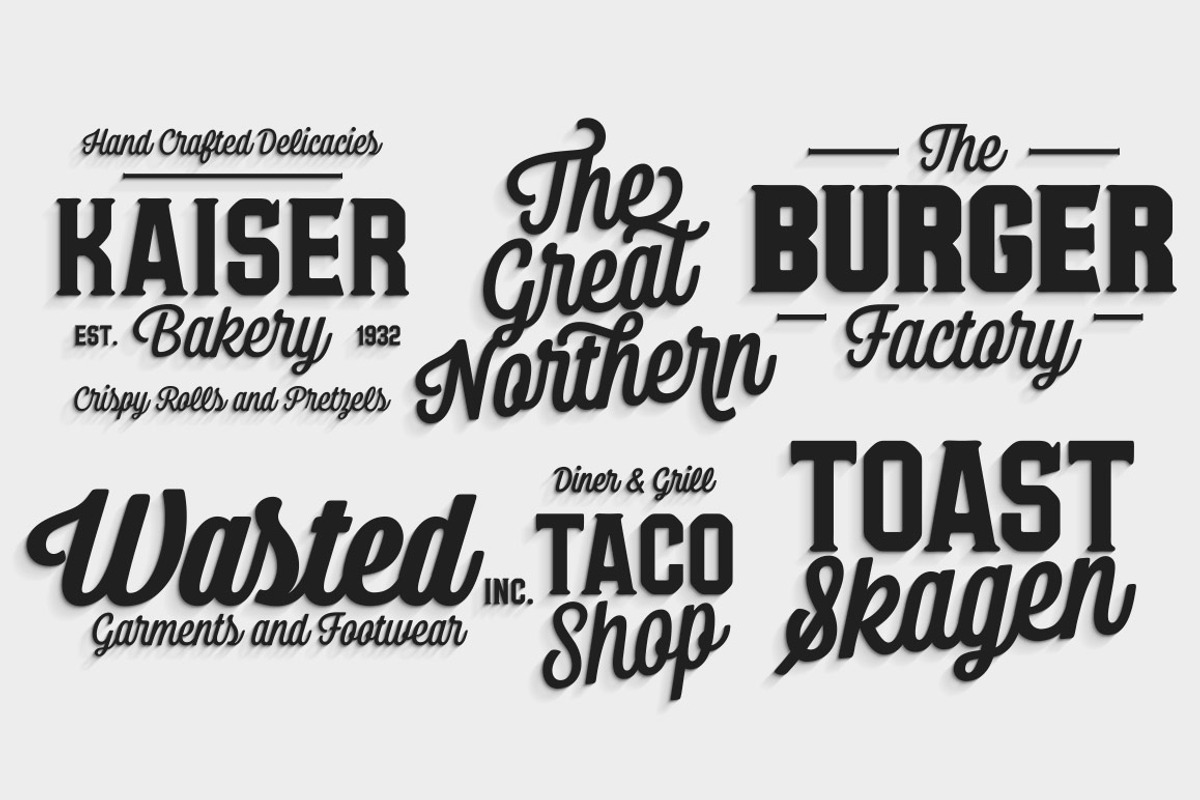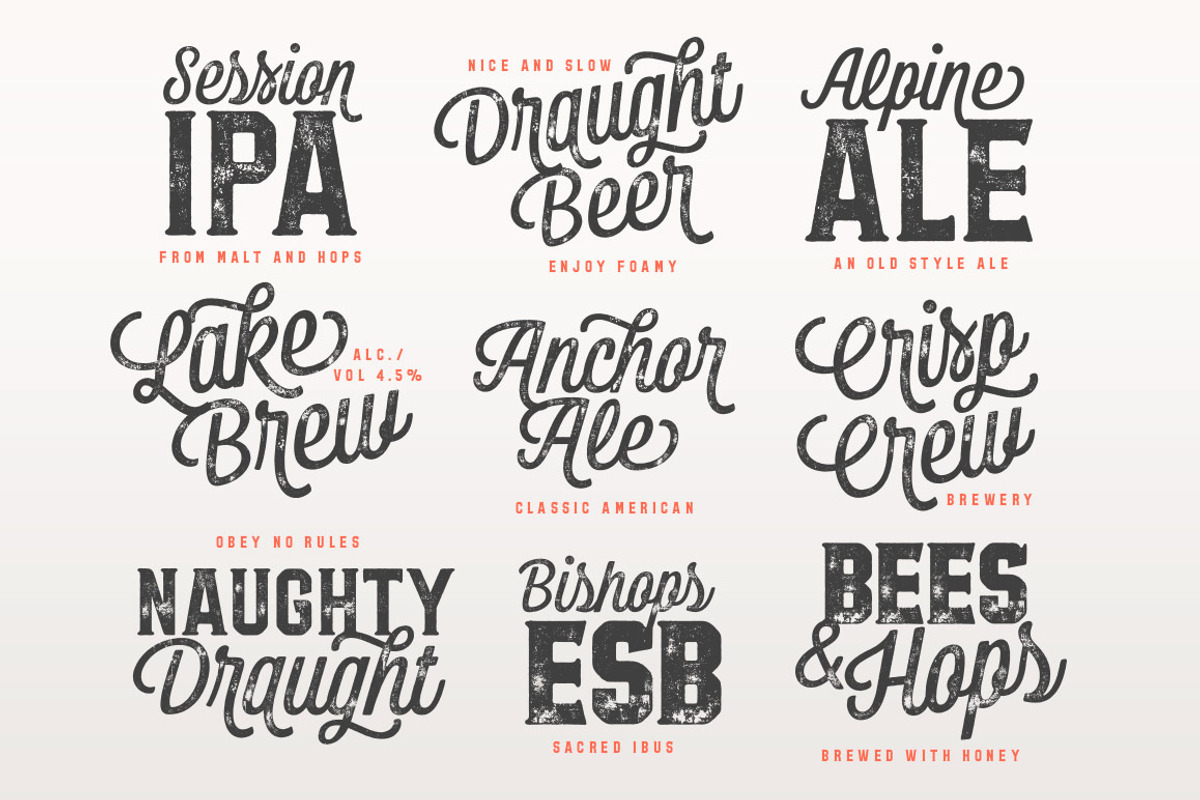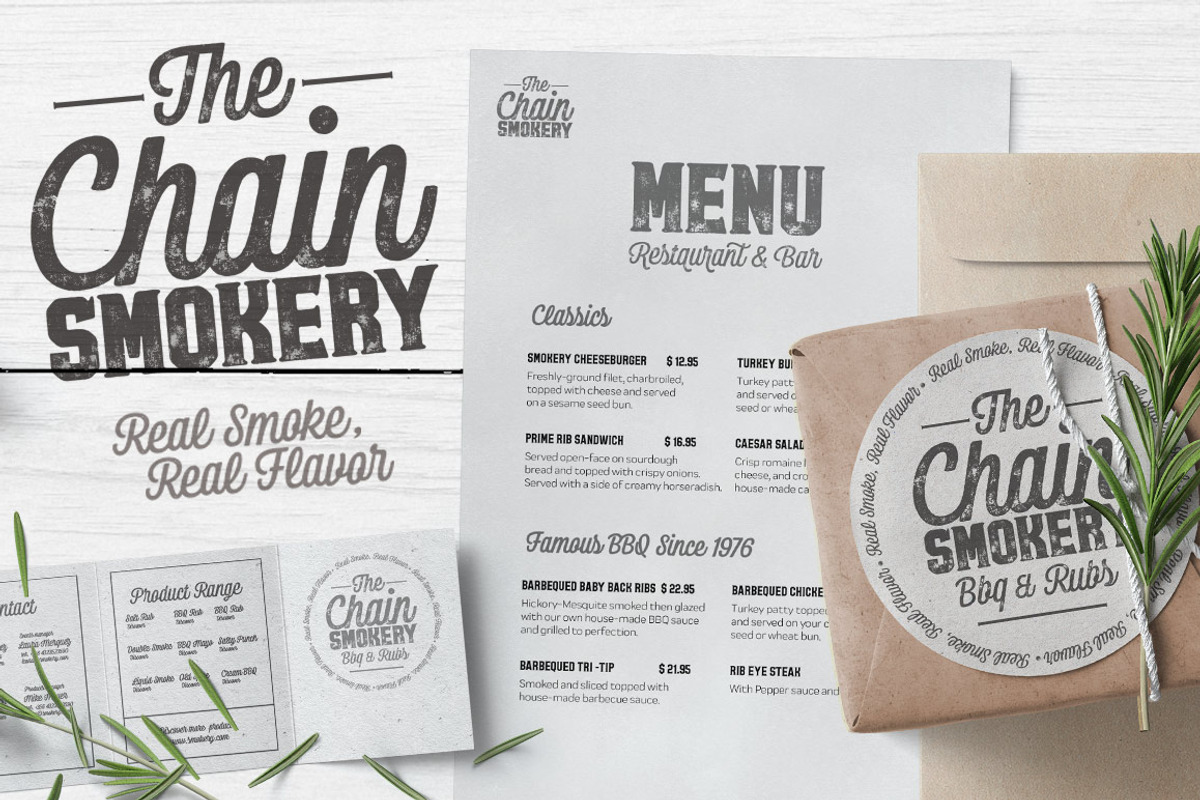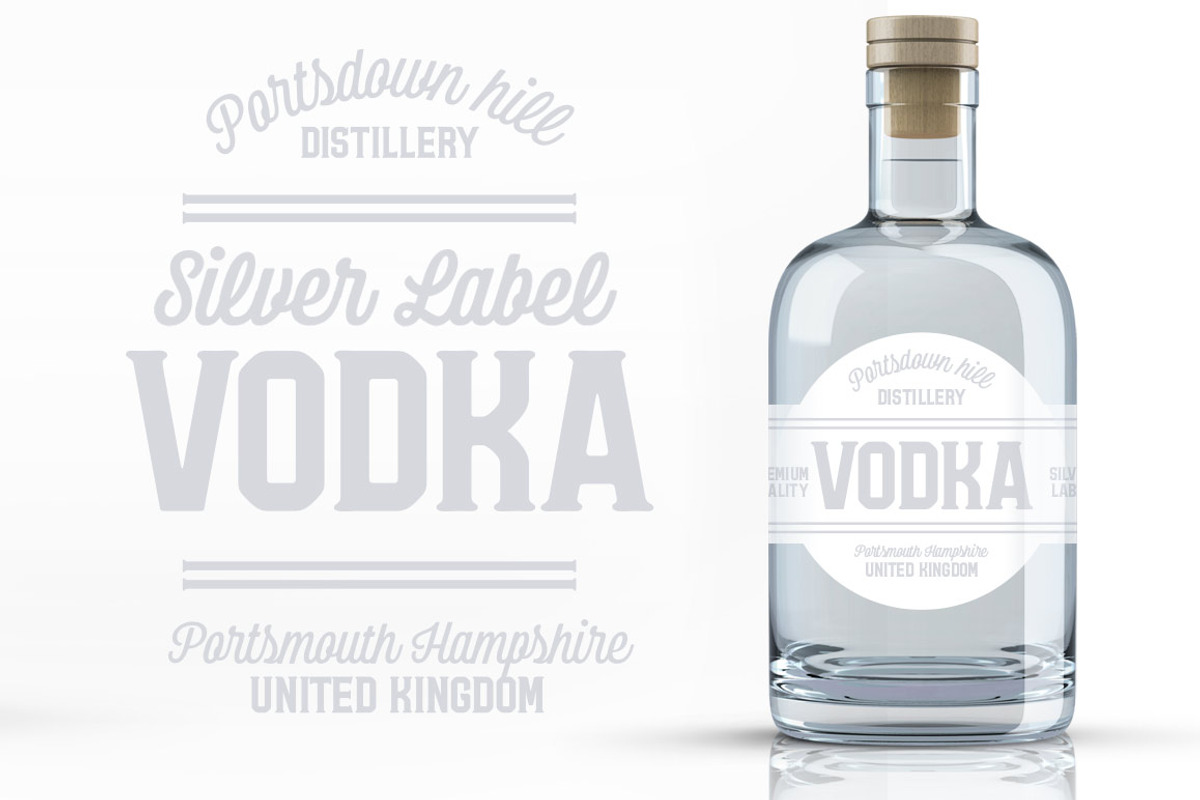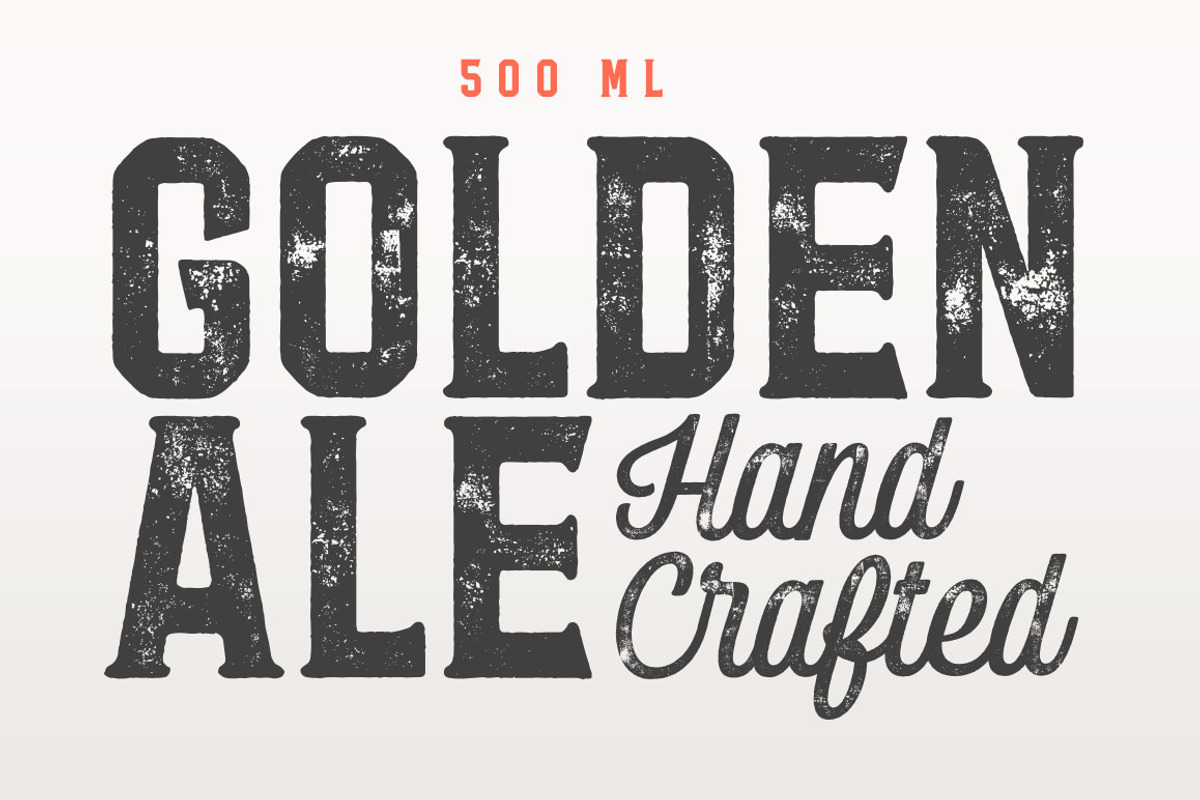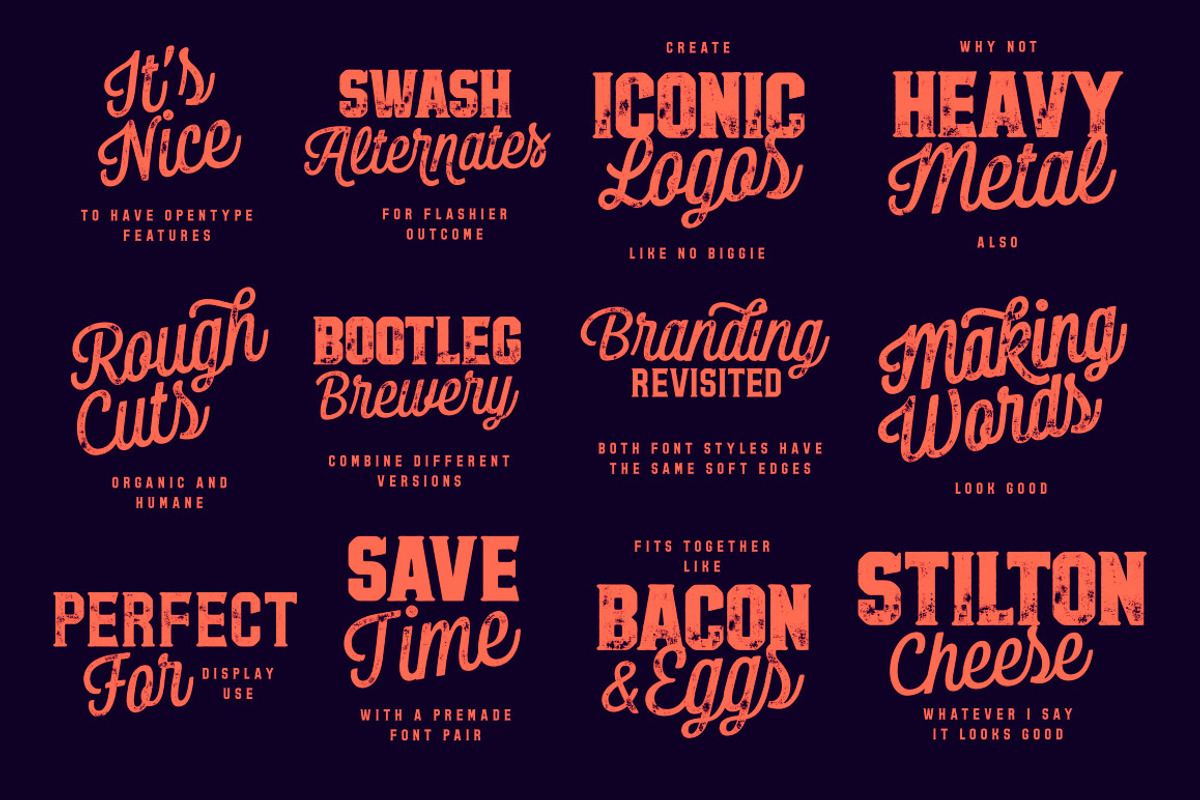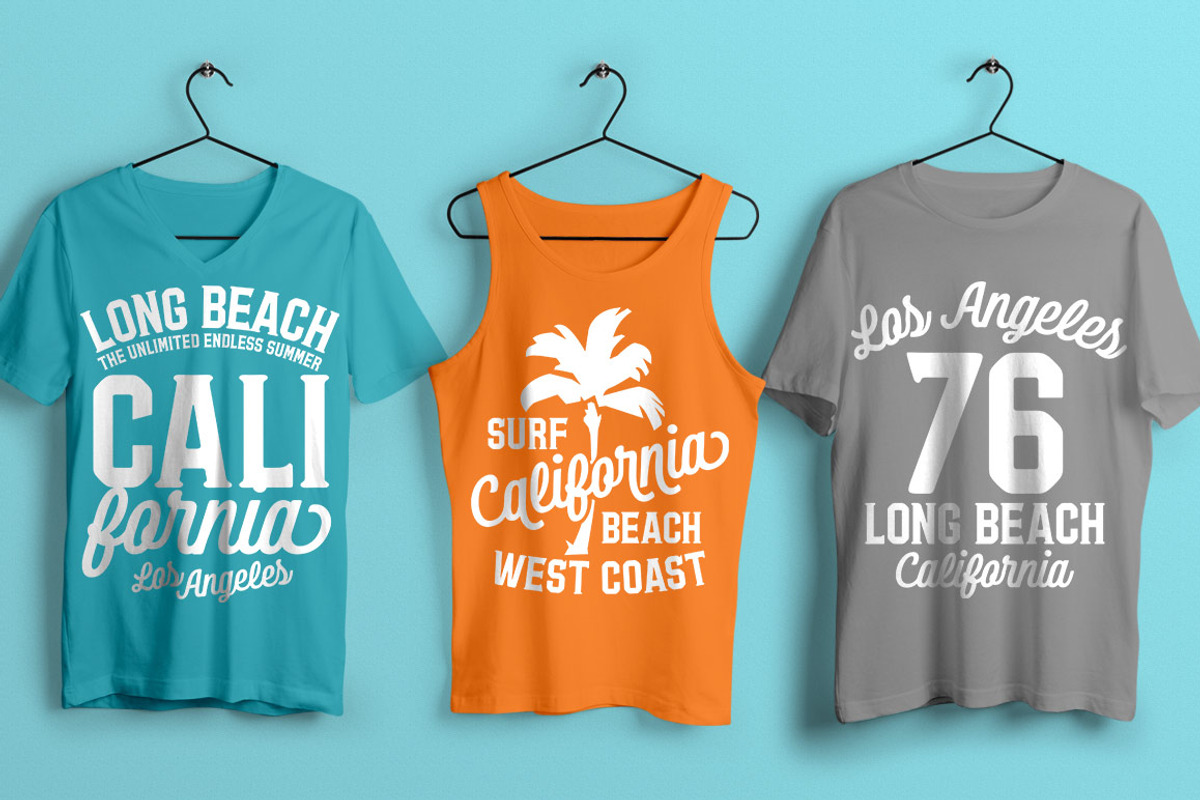
Bolton is a high quality OpenType font family with three weights of Script and three weights of a sturdy serif family and a pack of Extras that has catchwords and badges. In addition there's Bolton Print which is the same family with printed texture.
Bolton is a strong pack for creating catchy headlines and logotypes. With the whole family you can easily create a whole identity for your project. Bolton is great for branding, packaging and posters or any other kind of display use.
Bolton Script has very high x-height that create very solid word shapes. Scripts are equipped with Standard Ligatures and Contextual Alternates to keep the flow. If you need flashier letters there’s a Swash Alternate for every basic character.